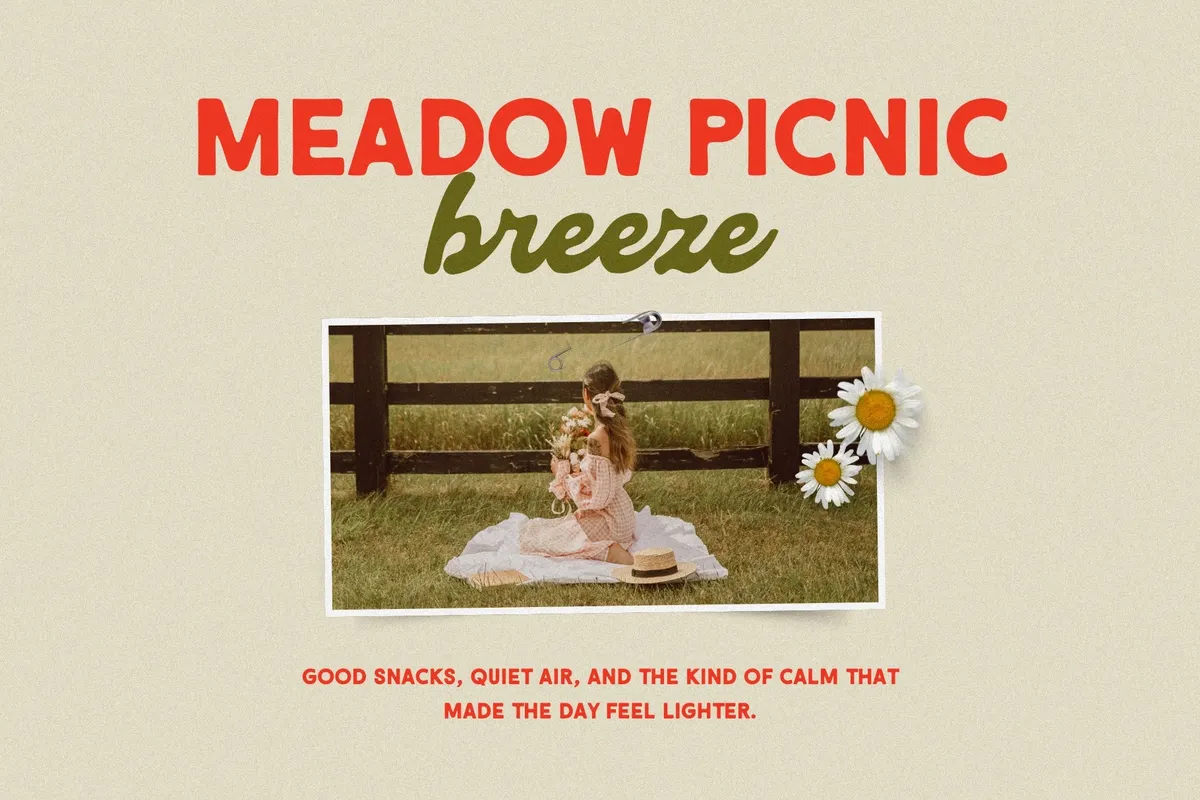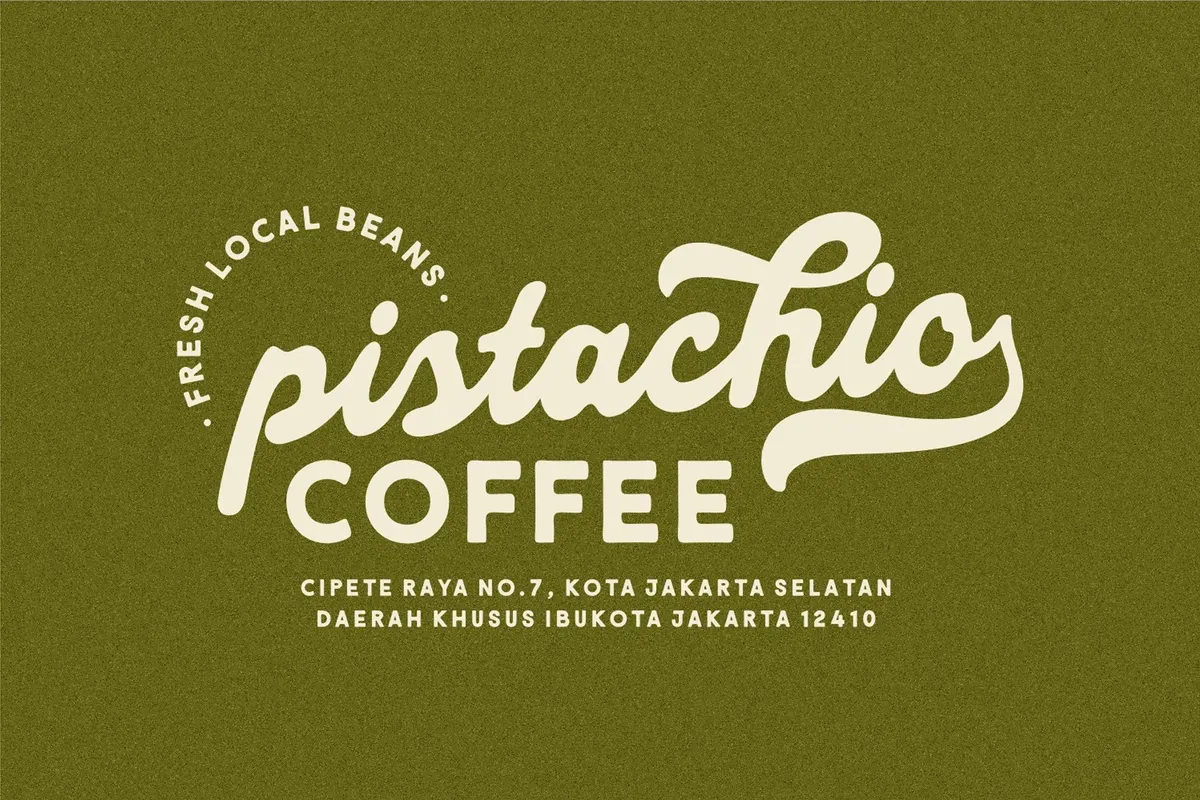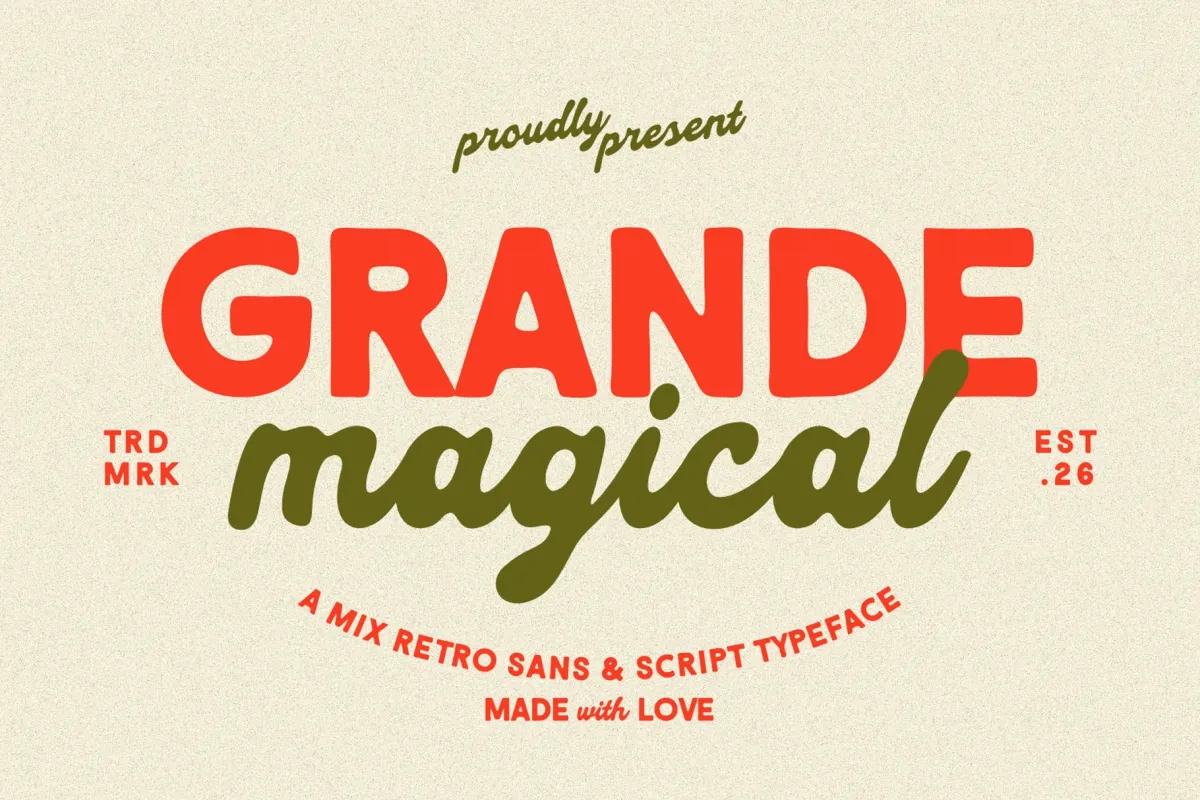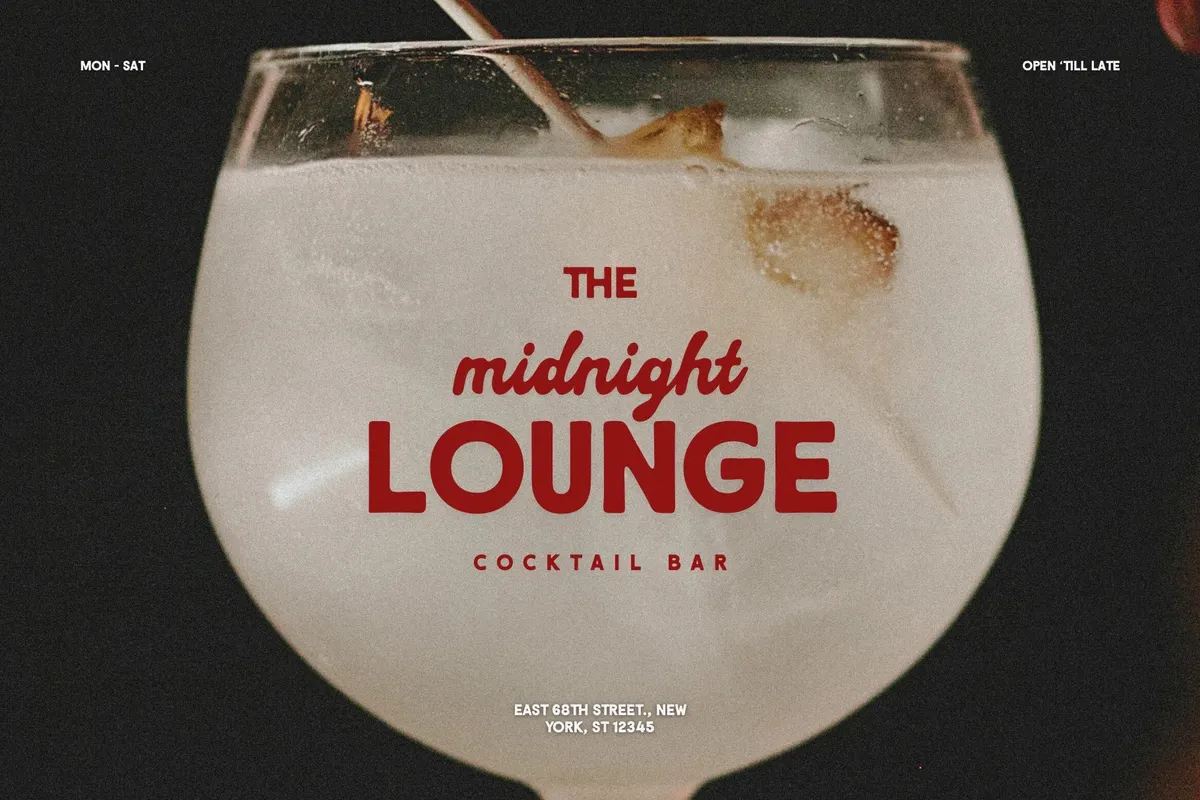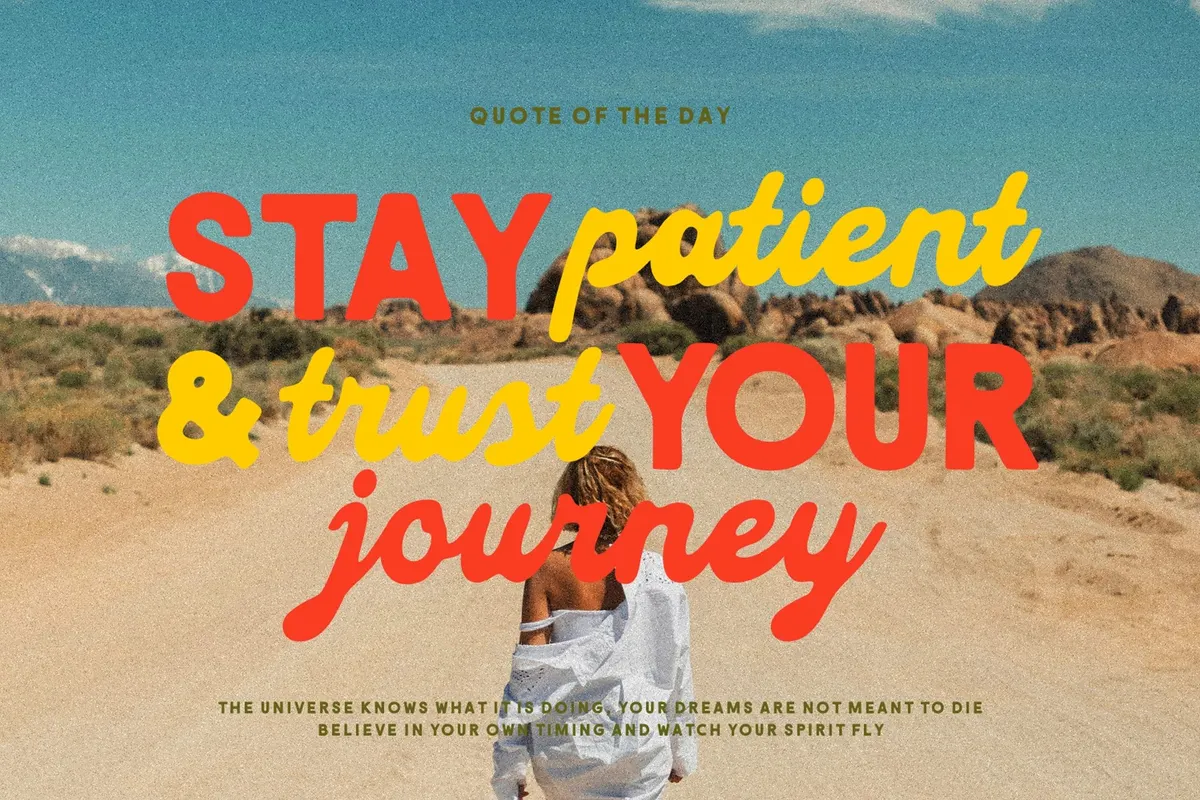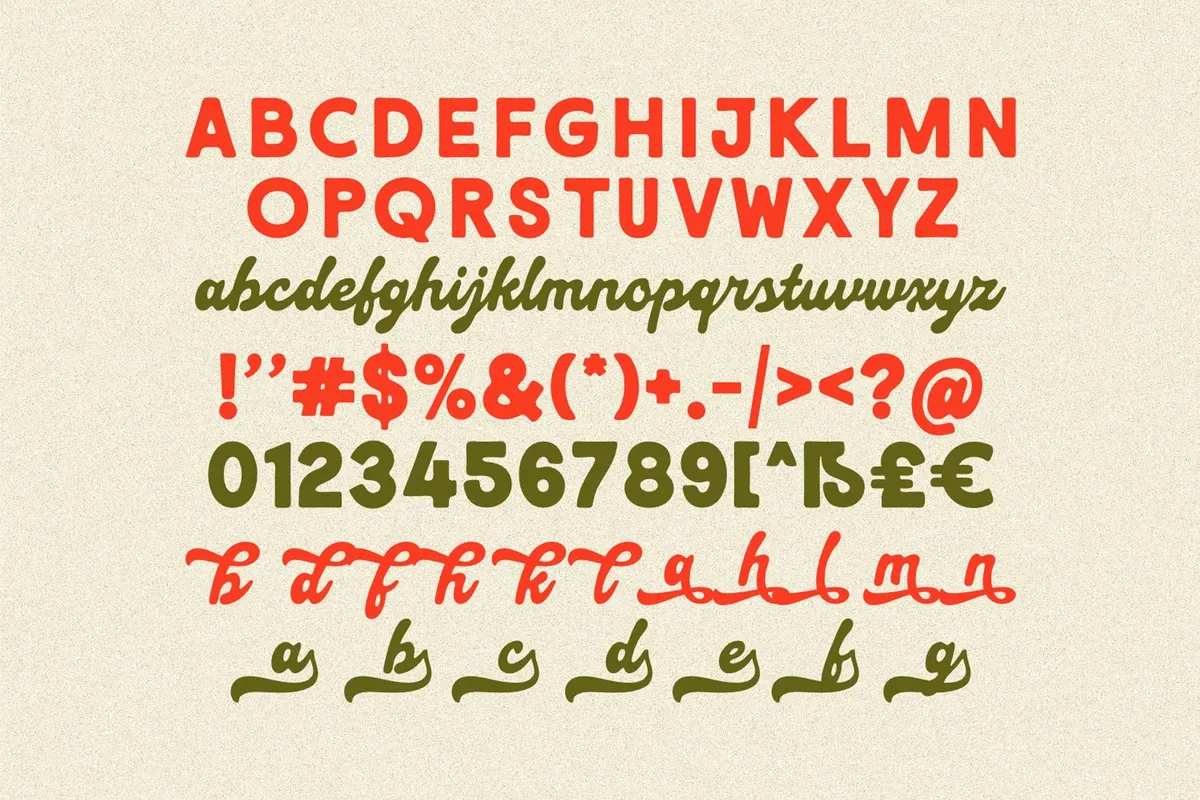
Grande Magical - Charming Retro Font Duo
Grande Magical packs a bold sans and a connected script into one retro font — capitals carry thick, rounded sans strokes, while lowercase switches to a loose, looping script with the same warmth. Four stylistic alternate sets swap in swash variants for select letters, so a headline can shift from a plain cap-and-lowercase pairing to a looser, hand-lettered mix without a second file.
Use it for branding, packaging labels, retro posters, logo lockups, apparel graphics, and social media headlines that need one word set with two distinct moods.
- uppercase rounded Sans;
- lowercase script;
- numerals, punctuation & symbols;
- 4 stylistic alternate sets with swash letterforms;